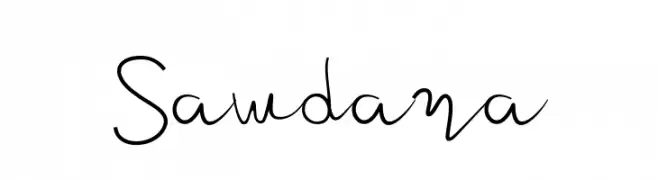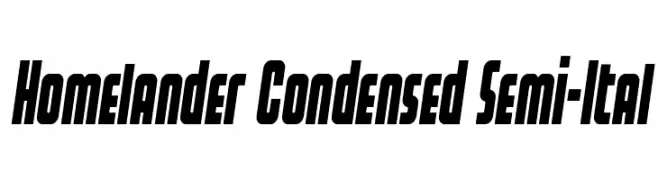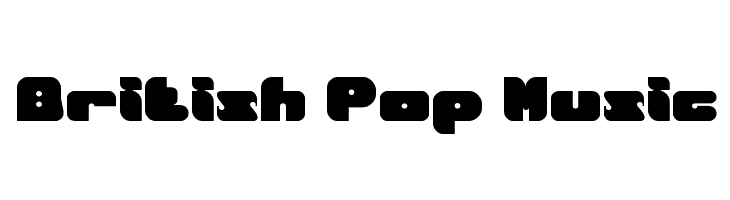
( Southype - Rodrigo Gonzalez - www.southype.com )
A modern, geometric font with an italic slant and hexagonal pattern.
( dcoxy - Greg Medina - www.dcoxy.com/ )
A playful, decorative font with a stitched pattern and casual, handwritten style.
( Fonts by Staircase Studio )
Elegant cursive handwritten font.
A bold, geometric font with a modern, futuristic style.
A bold, brush-style font with an adventurous and dynamic feel.
( Fonts by Chandra Chandro )
A playful, handwritten font with smooth, flowing lines and a casual style.
A bold, hockey-themed decorative font with integrated sports elements.
A bold, condensed, semi-italic font with a modern and dynamic style.
( Fonts by TarmSaft Font Factory - http://www.aska.nu/tarmsaft/ )
A bold, chunky font with playful, rounded characters.
Elegant cursive font with interconnected, flowing letters.